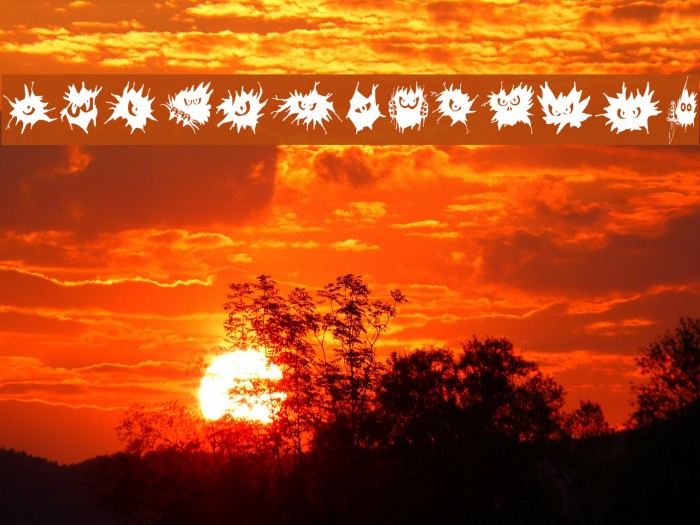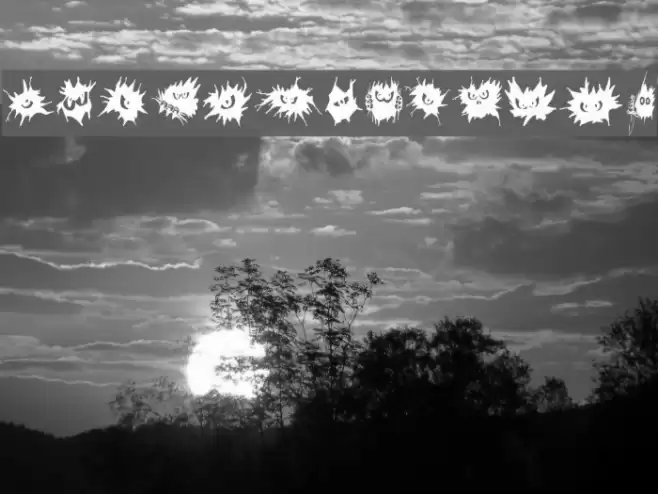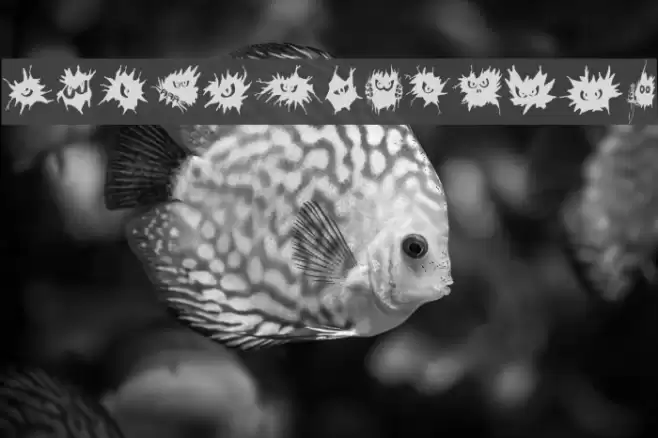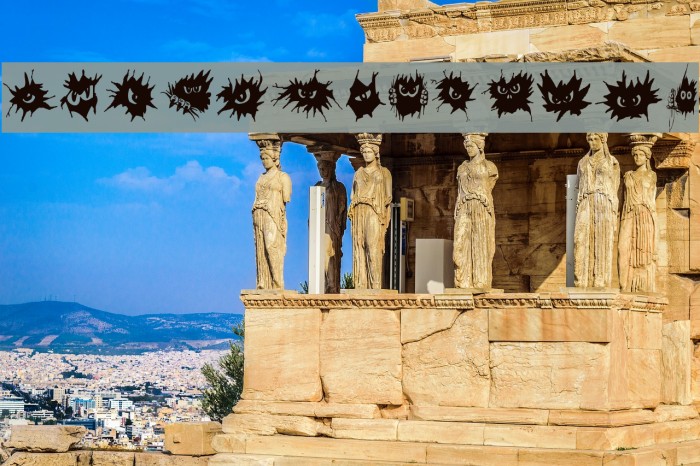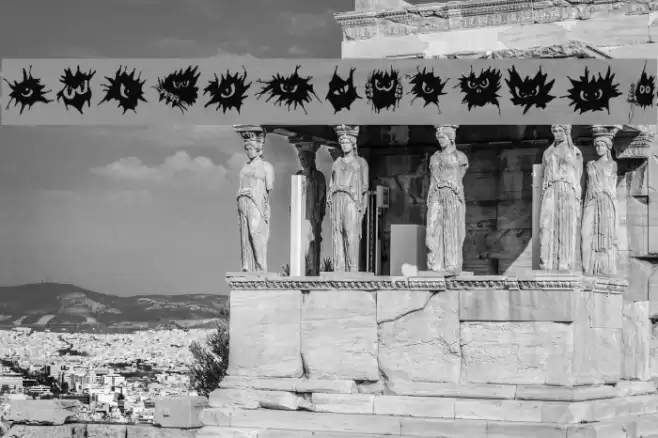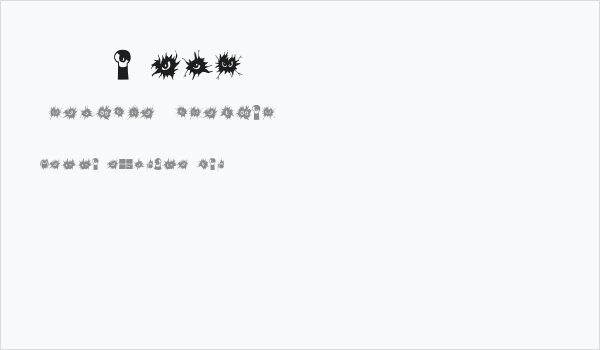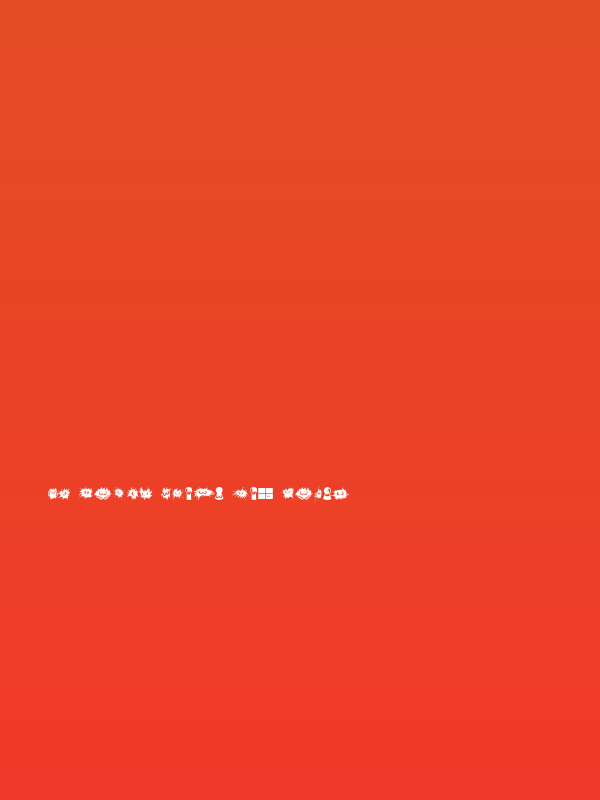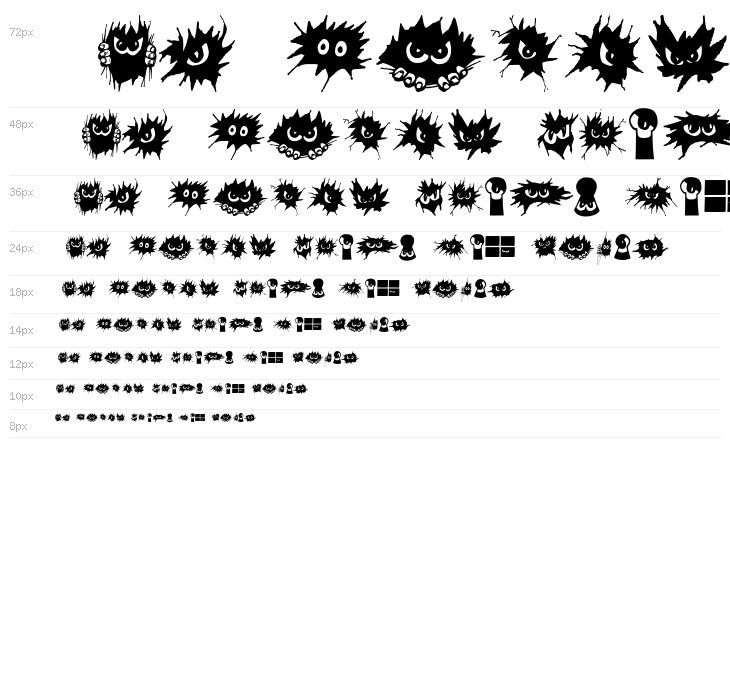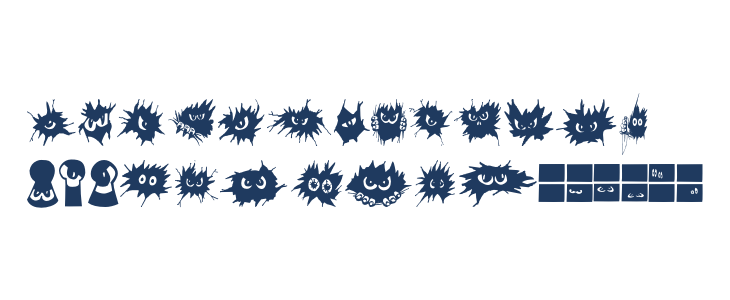
FE-NoFear Font
FE-NoFear Description
This font is a highly decorative and playful design, featuring characters that resemble quirky, cartoonish creatures with expressive eyes and spiky outlines. Each letter and symbol is uniquely crafted to give a sense of whimsy and fun, making it stand out with its bold and imaginative style. The characters are filled with personality, making them ideal for projects that require a touch of humor and creativity. The font's design is consistent throughout, maintaining a cohesive look while offering a variety of unique character shapes.